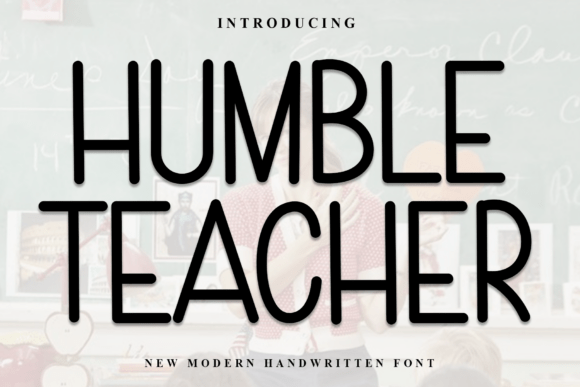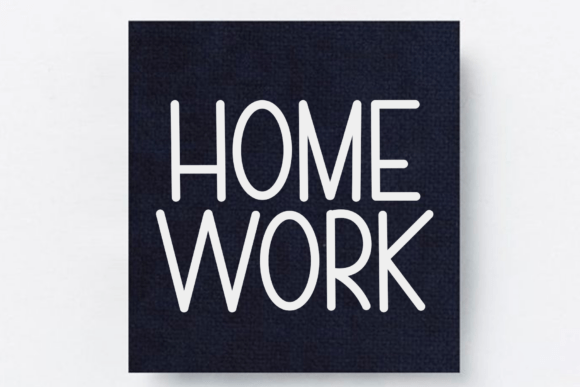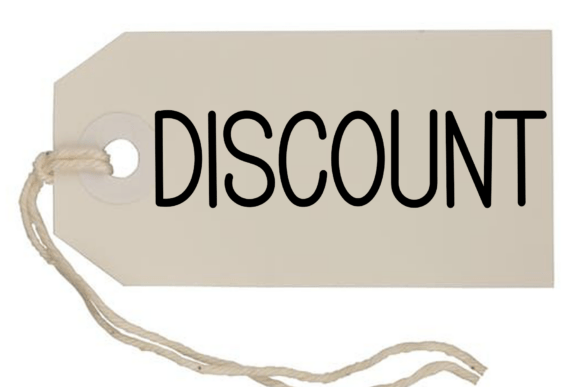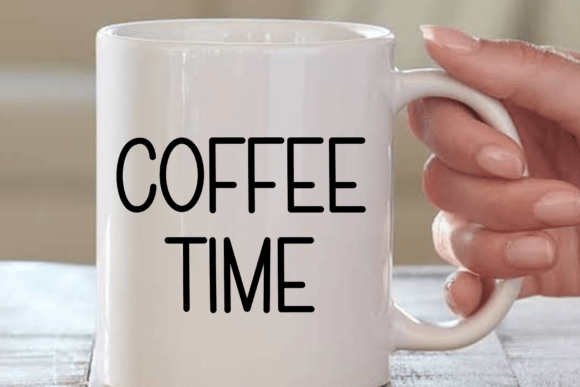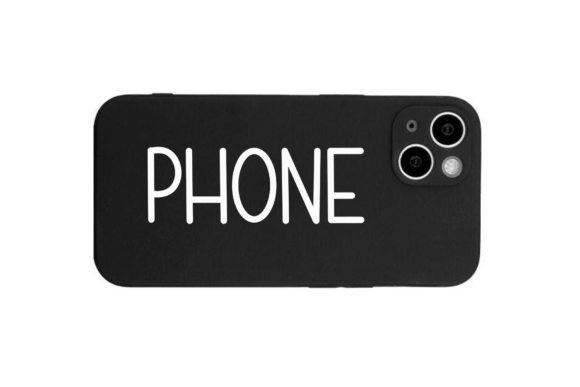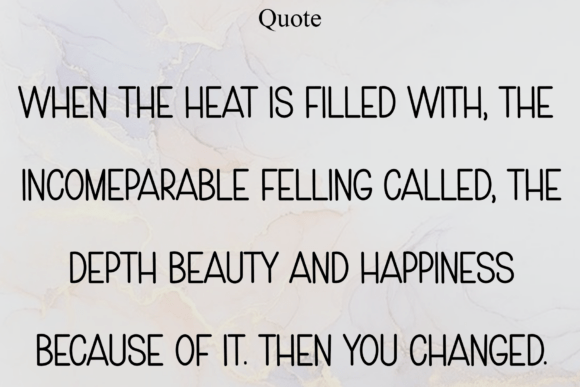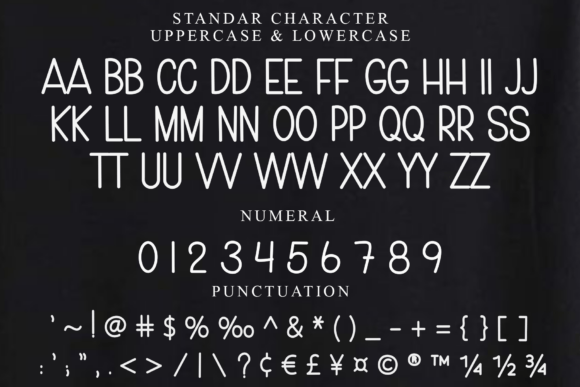
Unleashing the Power of Hand-Drawn Charm
Have you ever found yourself stuck in a creative rut, craving a fresh and inviting design that feels like a warm hug? I know I have – and that’s exactly where the Humble Teacher Font comes in. This delightful font is the perfect antidote to a dull design, injecting a playful touch that’s sure to capture the attention of your audience.
With its round, hand-drawn strokes and charming aesthetic, the Humble Teacher Font is an absolute dream for designers looking to add a personal touch to their projects. Whether you’re crafting invitations, social media graphics, or personal branding materials, this font is sure to bring a smile to your face and a sense of approachability to your design. And with its versatility in various application engines, you can trust that the Humble Teacher Font will be your go-to companion for all your creative endeavors.
Humble Teacher Font Key Features
- Font Family: Humble Teacher is a unique, handwritten font designed to convey a sense of humility and approachability.
- Unique Characteristics: Features a distinctive, hand-written feel with subtle imperfections, giving it a personal touch.
- Font Style: Available in Regular and Bold styles, allowing for versatility in design applications.
Humble Teacher Font Review
I recently had the chance to work with the Humble Teacher Font, and I must say it’s a unique and charming addition to any design project. Here’s my honest take on it:
- The Humble Teacher Font has a lovely, hand-written feel that’s perfect for educational materials, quotes, or even branding for a teacher or school.
- The font is highly customizable, with a wide range of weights and styles to choose from, making it easy to find the perfect fit for your project.
- The font is well-suited for both print and digital designs, making it a versatile choice for designers.
- The Humble Teacher Font may not be the best choice for projects that require a highly professional or corporate look, as it has a more casual, handwritten feel.
- The font may not be as readable at very small font sizes, which could be a limitation for certain design applications.
Overall, I think the Humble Teacher Font is a great choice for designers who want to add a touch of personality and whimsy to their projects. While it may have some limitations, its unique charm and versatility make it a great addition to any design library.
The Humble Teacher font is ideal for educational materials, such as worksheets, handouts, and presentations. It’s also suitable for creating a professional and approachable atmosphere in business settings, such as company reports and training materials.
Alternatives to Humble Teacher Font
Playfair Display is a luxurious and elegant serif font that is perfect for creating a sense of sophistication and refinement. It’s ideal for use in high-end branding, advertising, and editorial design. In comparison to Humble Teacher Font, Playfair Display has a more refined and polished look, making it suitable for formal and upscale applications.
Lato is a clean and modern sans-serif font that is highly legible and versatile. It’s perfect for use in digital design, such as websites, mobile apps, and presentations. Lato has a more minimalist and neutral look compared to Humble Teacher Font, making it suitable for a wide range of applications and audiences.